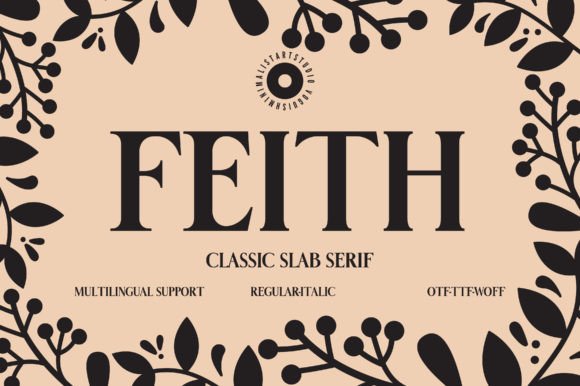
Feith - Elegant Thin Serif Font for Editorial & Minimal Designs
Feith is a slab‑serif font that combines strength and sophistication — its subtle yet substantial serifs and graceful letterforms give your typography a classic, authoritative feel while maintaining elegance. With a wide character set and over 570 glyphs, Feith supports multilingual text, making it flexible for global use and versatile in many design contexts.
Whether you are designing packaging, editorial layouts, book covers, branding, signage, or invitations, Feith delivers a balanced mix of readability and style. Its slab‑serif roots give it a sturdy presence, while its refined design ensures that your text remains attractive and professional.
- Graphic designers creating logos, branding, or packaging with a classic / strong serif voice
- Publishers or self‑publishers laying out book covers, magazines, editorial spreads or print publications
- Small business owners and crafters needing a reliable serif font for product labels, stationery, invitations, or signage
- Etsy or POD shop sellers wanting a serif font that works for packaging, prints, labels or brand identity materials
- Designers working on multilingual or global‑market projects that require extended glyph support
- Books, magazines, editorial layouts, e‑books
- Product packaging, labels, tags, boxes, packaging inserts
- Logos, brand identity, business cards, letterheads
- Invitations, greeting cards, stationery, wedding or event materials
- Signage, posters, flyers, print ads, marketing materials
- Wall art, home‑decor prints, typographic posters, branding collateral
- Comprehensive character set with 570+ glyphs — includes multilingual support
- Slab‑serif design suitable for headings, body text, print or display use
- Strong, elegant slab‑serif — gives your text weight and presence without sacrificing sophistication
- Extensive glyph set and multilingual support — perfect for global brands or projects requiring special characters
- Flexible — works across many design types: print, editorial, packaging, branding, signage, books, and more
- Professional and polished aesthetic — gives a sense of reliability and quality to your products or designs
Q: Does Feith support multiple languages and special characters?
A: Yes — with over 570 glyphs and full multilingual support, Feith is well‑suited for global projects or designs that need extended character coverage. -
Q: Is Feith good for both headings and body text?
A: Yes — its slab‑serif construction and balanced letterforms make it versatile enough for both display text (headings, logos) and longer body copy (books, articles, labels), depending on your design needs. -
Q: Is this font suitable for product packaging, branding, or merchandise design?
A: Yes — Feith’s elegant slab‑serif style and full glyph support make it ideal for packaging, labels, branding, books, or merchandise typography for both print and web.
| Feature | Feith | Generic Slab Serif A | Generic Clean Sans‑Serif B |
| Font Style | Slab‑serif — structured, elegant serif with weight | Traditional serif — softer serifs, lighter strokes | Sans‑serif — clean, modern, minimal, neutral |
| Best Use | Branding, packaging, editorial, books, signage, print/digital design | Body text, classic design, editorial, readability‑focused text | Web UI, modern minimalist branding, clean headings, minimal design |
| Readability & Character Support | High — with wide glyph set and balanced serifs for readability and multilingual use | Moderate to high — good for classic text but may lack extended glyph support depending on font | High — great for clean web text, small sizes, interfaces, UI, but may look plain for branding needs |
| Visual Vibe | Elegant, classic, strong, professional, timeless | Traditional, refined, book‑like, formal | Modern, minimal, neutral, functional, clean |